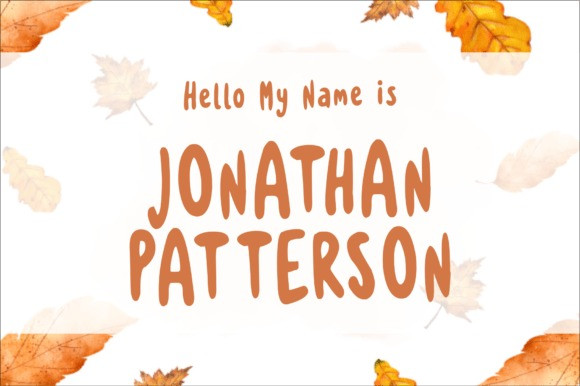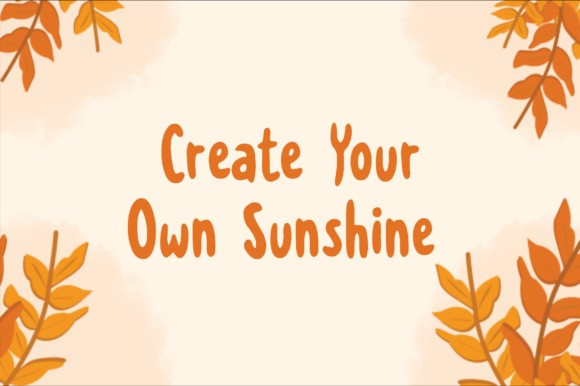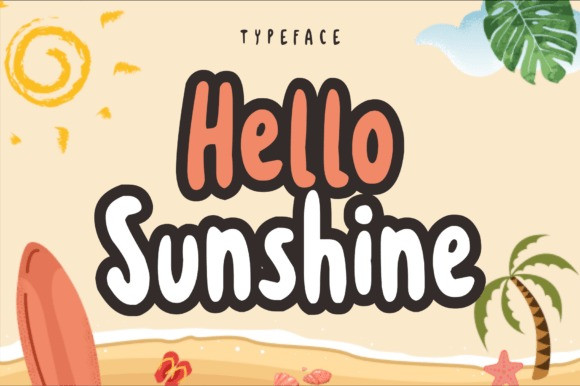
Hellooo Sunshine Font
Hellooo Sunshine Font is a playful display font inspired by sunny beach days, tropical getaways, and the carefree spirit of summer. Featuring bold, rounded letterforms with a friendly handcrafted feel, this typeface brings warmth, happiness, and a fun-loving personality to any design.
Perfect for summer branding, beach party invitations, travel promotions, children’s projects, social media graphics, product packaging, posters, stickers, and seasonal merchandise, Hello Sunshine captures the joy of sunshine, ocean breezes, and endless vacations. Its charming curves and bold presence make every headline stand out while maintaining excellent readability.
Bring a splash of summer vibes and positive energy to your creative projects with Hello Sunshine.